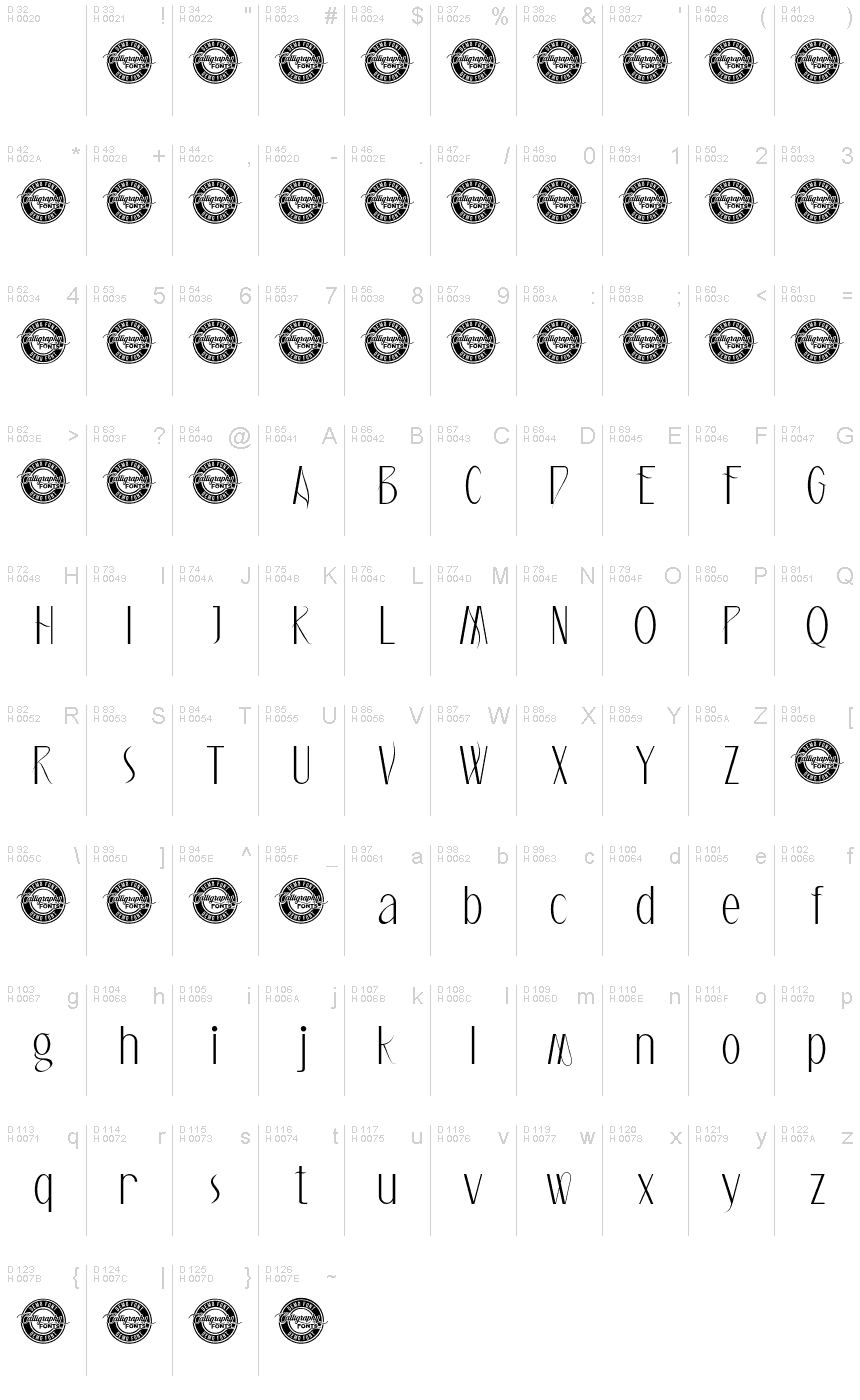
Magnesian Demo
Magnesian is the perfect font for those who want to add a touch of vintage charm to their projects. Designed by Widiyanti & Sarah SP, this light and condensed display font will breathe new life into your designs. Its unique style makes it suitable for a wide range of projects, from retro logos to vintage posters and everything in between. Whether you're working on a branding project or creating eye-catching headlines, Magnesian's distinct look will help you stand out from the crowd. Get creative with Magnesian – it's sure to be a valuable addition to your design toolkit!